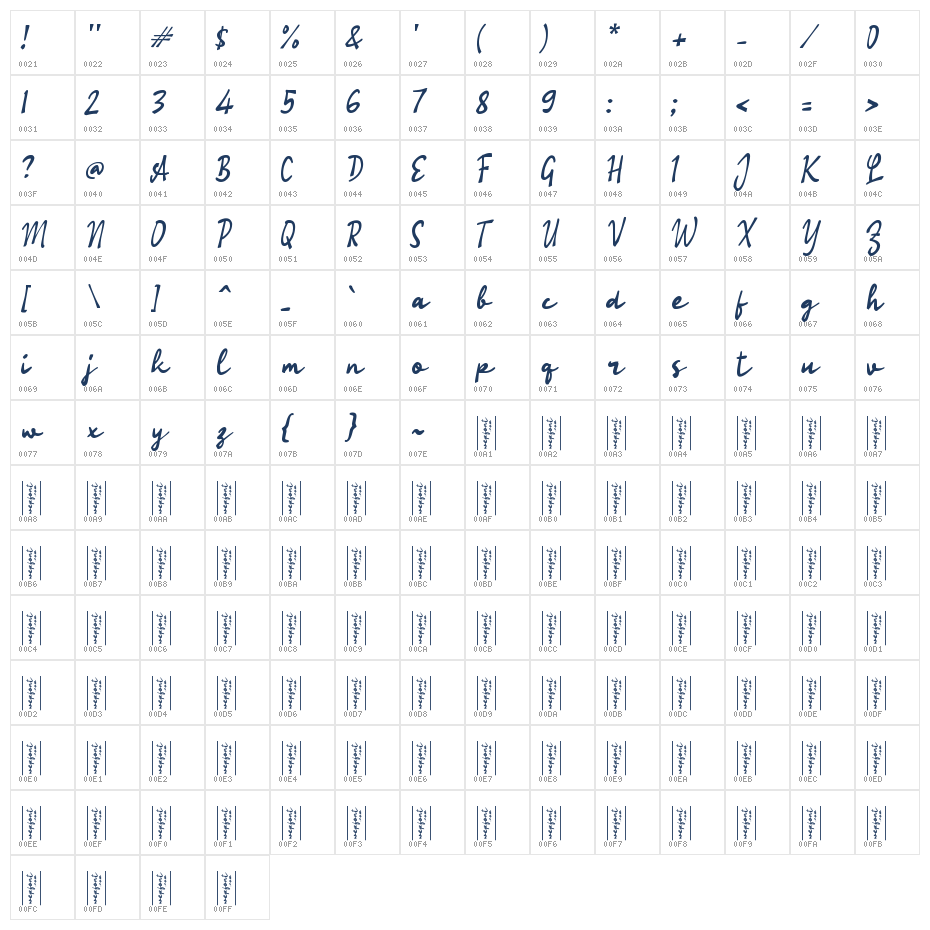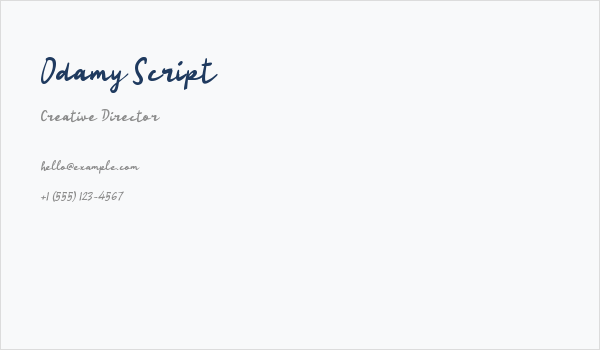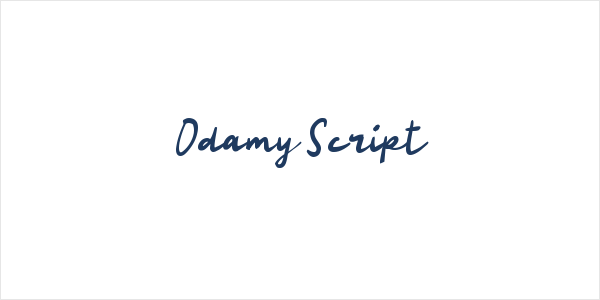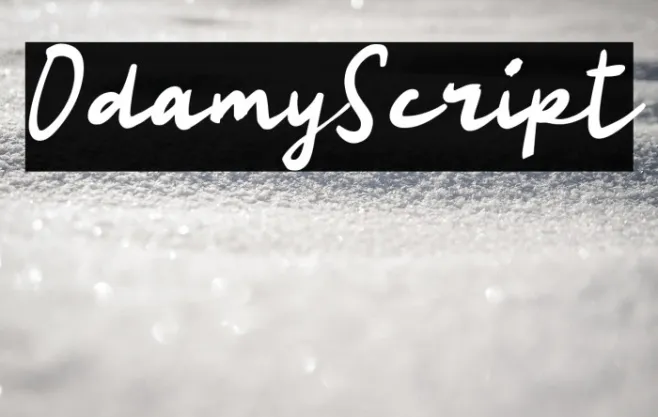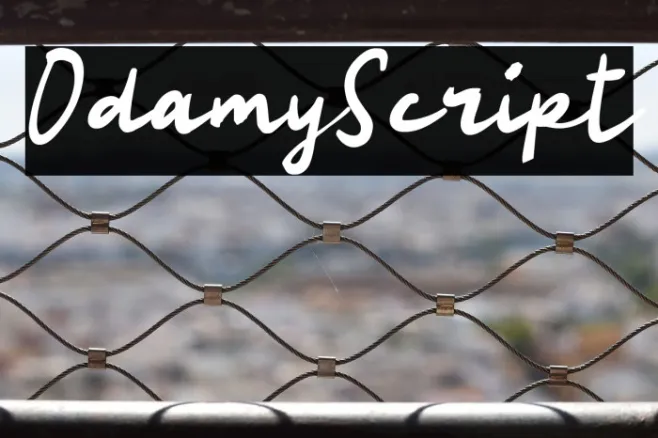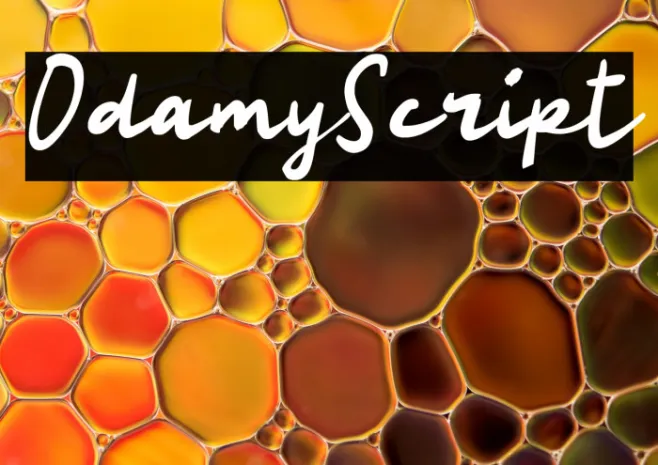
Odamy Script Font
Odamy Script Description
A casual, handwritten script font with a smooth, flowing style.
| Overall Style | Casual, Handwritten |
| Use Case | Headlines, Logos, Invitations, Greeting cards |